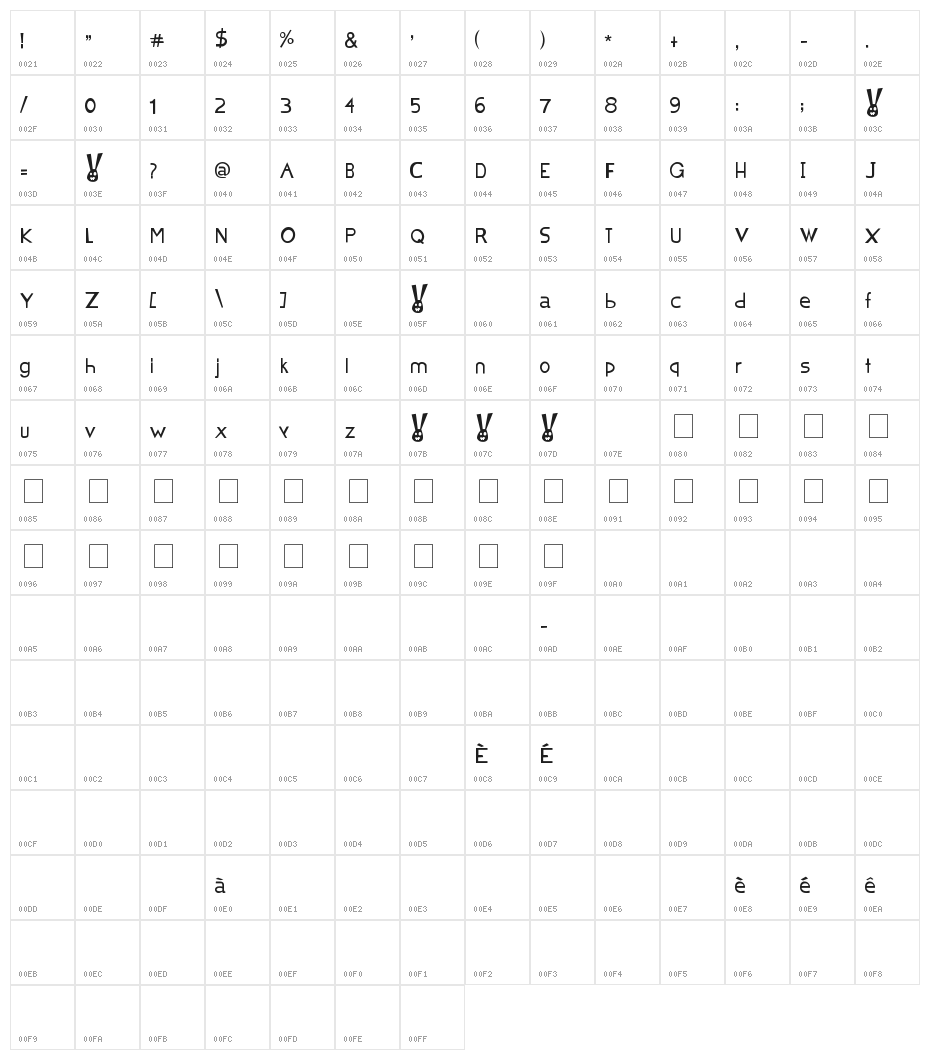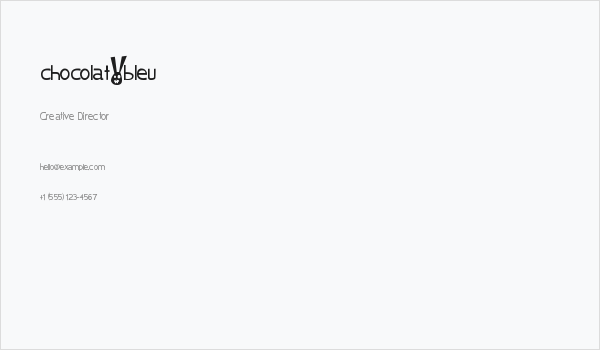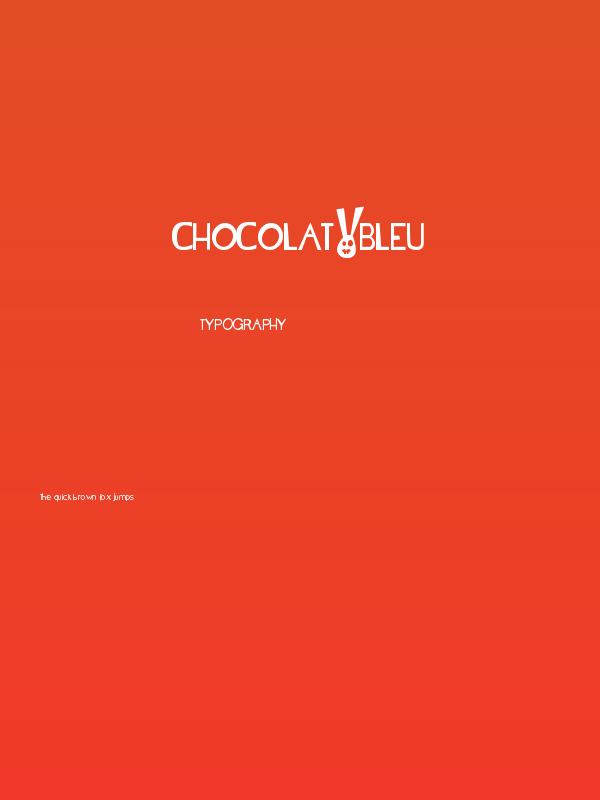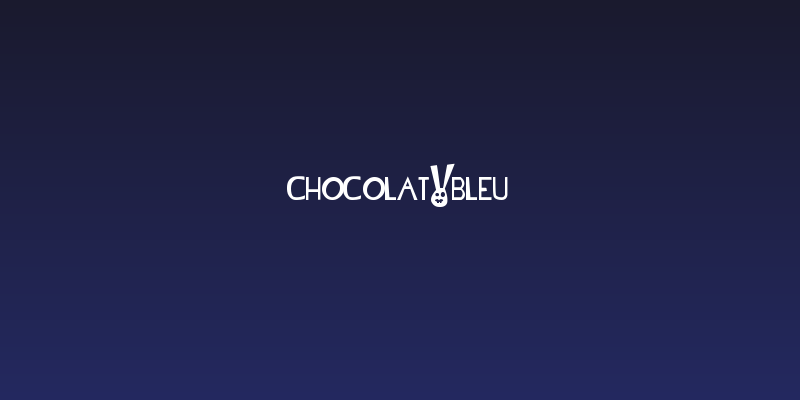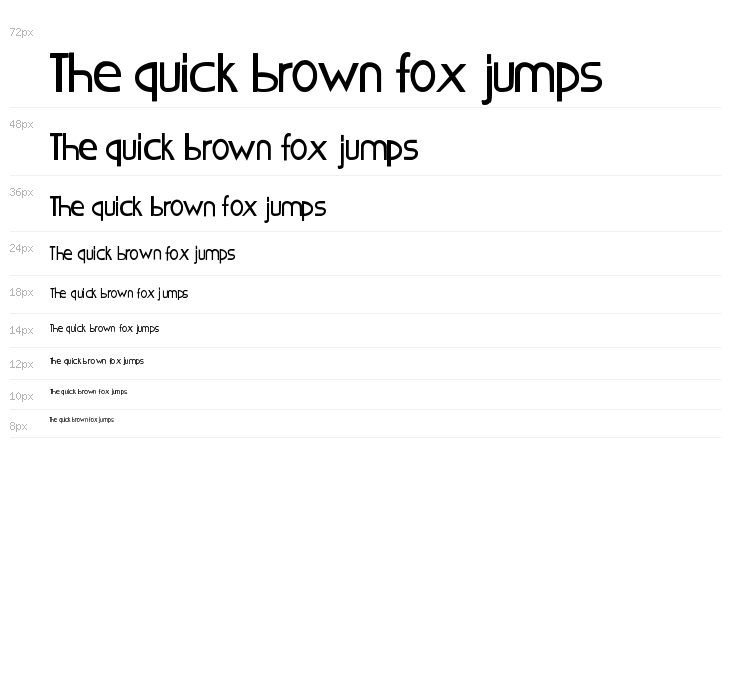
chocolat_bleu Font
chocolat_bleu Description
This font features a modern and sleek design with a geometric structure. The uppercase letters are bold and slightly condensed, giving a strong and assertive appearance. The lowercase letters maintain a consistent style with smooth curves and clean lines. The numerals are well-proportioned, matching the overall aesthetic of the alphabet. Special characters are distinct and complement the font's contemporary look. The font's uniform stroke width and minimal contrast make it versatile for various design applications.
Proposed ProjectsIdeal for branding, advertising, and editorial design projects where a modern and clean look is desired.